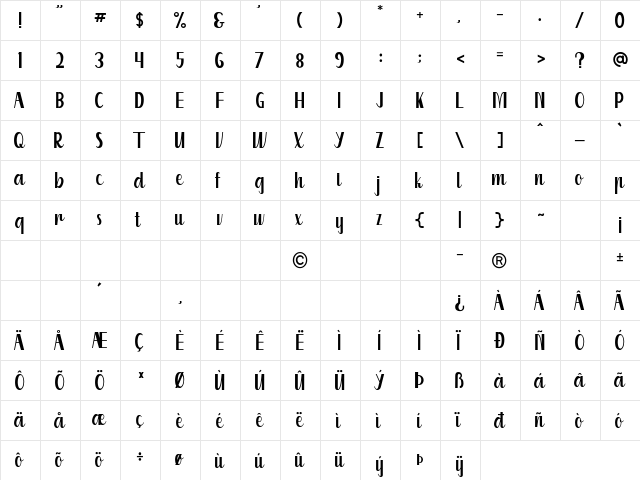
kuriland Regular
Design Context for kuriland Typeface
kuriland is a composed and adaptable typeface that performs quietly and consistently across a wide range of design contexts.